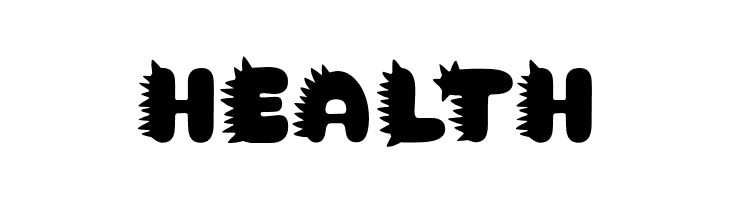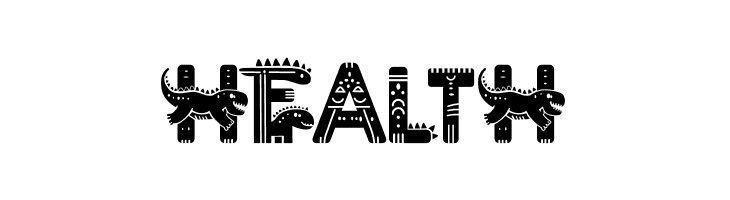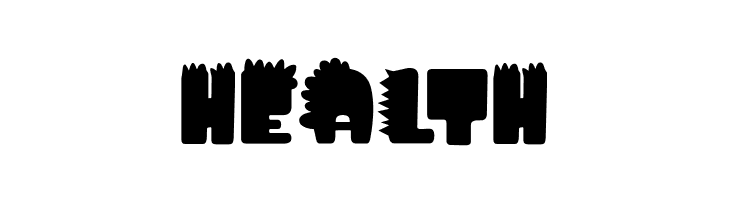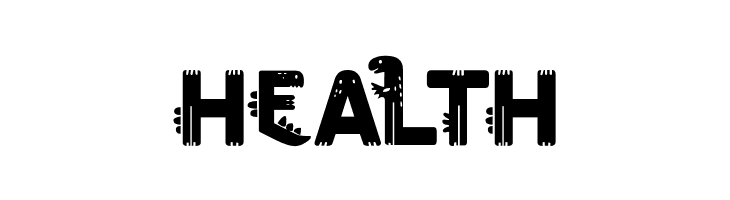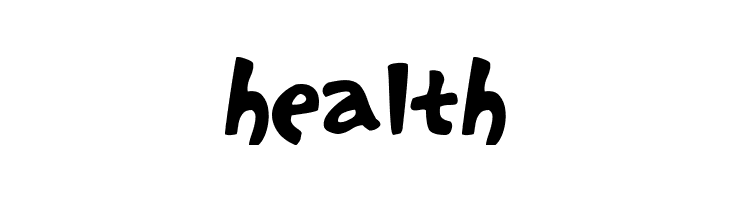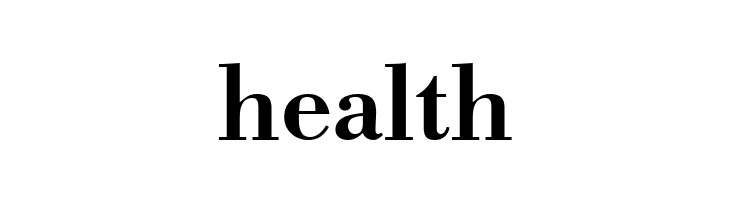
A sophisticated script font with elegant, flowing cursive strokes.
A lively and elegant script font with flowing, cursive letterforms.
An elegant script font with flowing, cursive letters and sophisticated swashes.
A graceful script font with flowing, cursive strokes and elegant flourishes.
An elegant script font with intricate loops and flourishes, perfect for formal occasions.
An elegant script font with ornate swirls and decorative flourishes.
A stylish and elegant script font with flowing, connected letterforms.
A bold, hand-drawn font with a playful and dynamic style.
A bold, high-contrast serif font with dramatic strokes and a commanding presence.
A bold, blocky font with a playful and dynamic style.
A playful, bold font with rounded, cartoon-like characters.
A sophisticated script font with elegant loops and swashes, perfect for decorative uses.
A playful and elegant script font with decorative swashes and bold weight.
A sophisticated script font with elegant swashes and flowing cursive letterforms.
An elegant script font with flowing, interconnected letters and decorative swashes.
A pixelated, monospaced font with a retro digital aesthetic.
An elegant and flowing script font with graceful curves and a sophisticated style.
A bold, blackletter-style font with intricate, angular strokes and a medieval flair.
A bold, artistic serif font with a blend of classic and modern elements.
A bold, cursive font with elegant loops and a dynamic slant.
A playful, hand-drawn font with bold, rounded characters and a whimsical style.
Barcode-style font with vertical line constructions.
A cursive, elegant font with flowing lines and sophisticated flourishes.
A dynamic and flowing script font with elegant, fluid strokes.
An elegant, flowing script font with sophisticated cursive letterforms.
A bold, decorative serif font with shadow effects for a vintage yet modern look.
A bold, angular font with sharp, jagged edges and a geometric style.
A bold, angular font with a rugged, prehistoric style.
A bold, playful font with decorative, textured characters.
A modern, italicized sans-serif font with a clean and professional look.
A bold, condensed font with a modern and geometric style.
A clean, geometric sans-serif font with a modern and professional appearance.
A playful, bold font with rounded, whimsical characters.
A playful collection of heart symbols and a lip print, perfect for romantic designs.